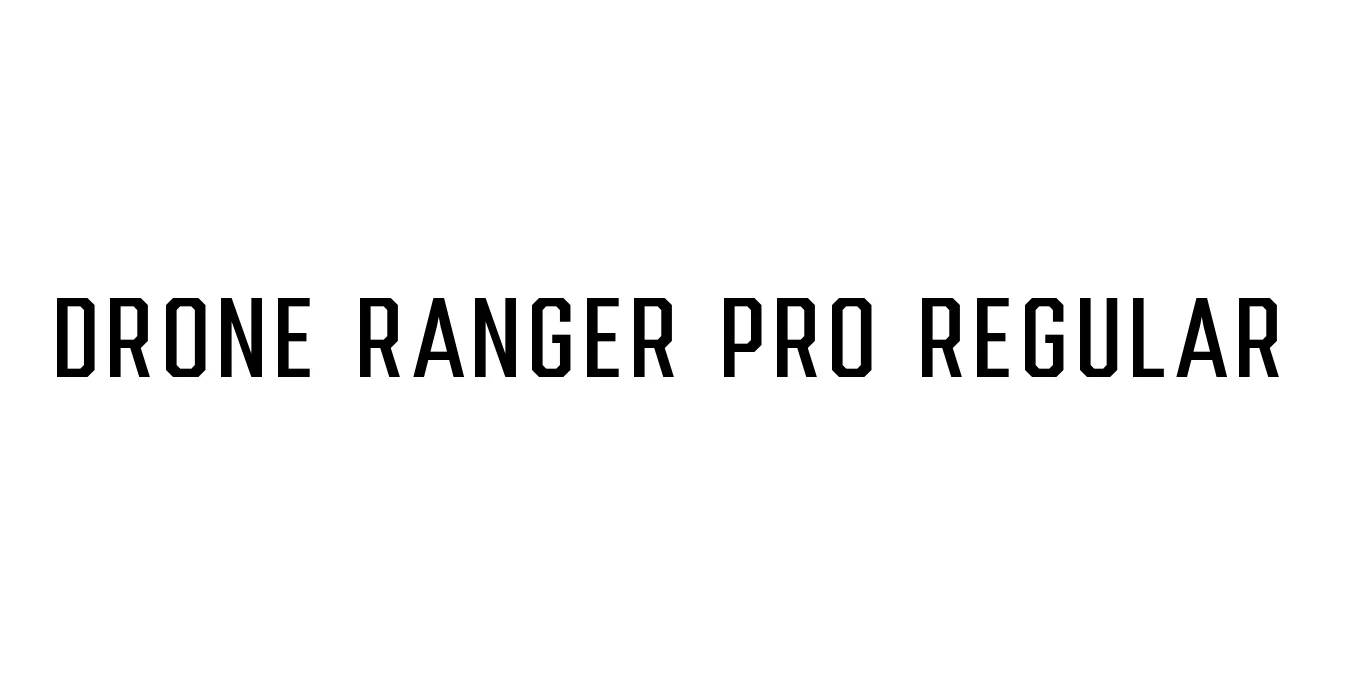
Drone Ranger Pro Regular
Designed by SeaTypes
| Font Name | Drone Ranger Pro |
| Category | Display / Sans Serif |
| Designer | SeaTypes |
| Similar Fonts | Industry, Quantico, Chakra Petch |
Drone Ranger Pro Regular is a sophisticated geometric display font family that bridges the gap between industrial utility and athletic aesthetics. Developed by SeaTypes, it features a robust set of characters designed to stand out in high-impact environments. The Regular weight provides a balanced, clean look that maintains a strong presence without being overly aggressive, making it a versatile tool for modern designers looking for a masculine and mechanical feel.
The typeface is inspired by vintage military stencil and collegiate block lettering, refined into a contemporary digital format. It includes extensive OpenType features, such as stylistic alternates and multilingual support, allowing for a high degree of customization. Whether used for branding or large-scale signage, Drone Ranger Pro Regular offers excellent legibility and a distinct personality that conveys power, precision, and reliability.
Drone Ranger Pro Regular Best Uses
Ideal for creating strong, memorable visual identities for sports teams, tech firms, or mechanical brands.
Perfect for jersey numbers, collegiate-style apparel, and rugged streetwear graphics.
Works exceptionally well for bold, attention-grabbing titles in editorial layouts and posters.
Provides a clean and modern industrial look for professional and high-impact logotypes.